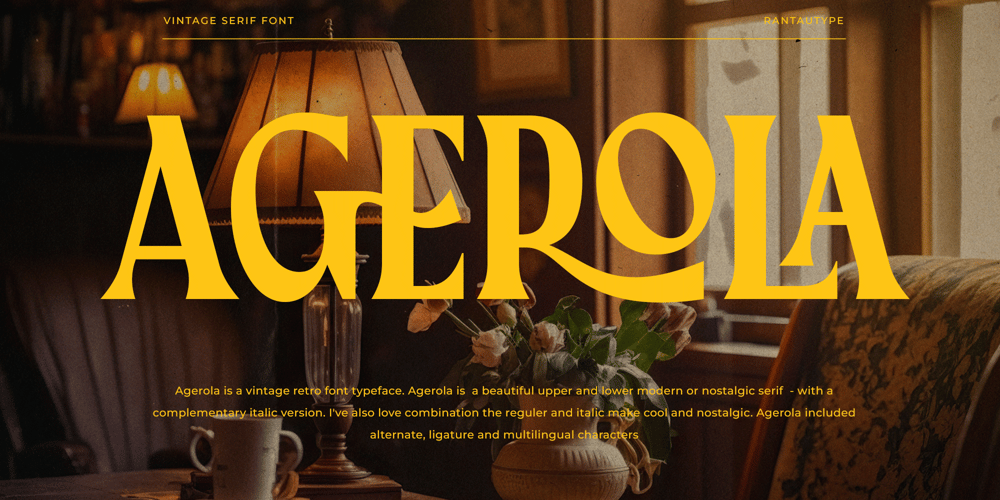
Agerola
Agerola font
Agerola Font Family was designed by Yudi Pratama Chandra and published by RantauType. Agerola contains 2 styles and family package options. Agerola – vintage retro font typeface. Agerola is a beautiful upper and lower modern or nostalgic serif – with a complementary italic version. I’ve also love combination the reguler and italic make cool and nostalgic. Agerola included alternate, ligature and multilingual charactersAgerola – perfectly suitable for creating elegant, chic, lifestyle design such as logos, title, and magazine, and more. Now you have more choice when using Agerola for typography. Agerola here to make your work to high level!!!What you have: Standar character A-Z and a-z Numberial and Functional Alternate and ligature Works on PC & Mac Simple installations Accessible in Adobe Illustrator, Adobe Photoshop, Adobe InDesign, even work on Microsoft Word. Fonts include Multilingual Support for: Afrikaans, Albanian, Asu, Basque, Bemba, Bena, Breton, Chiga, Cornish, Dutch, English, Estonian, Filipino, Finnish, Friulian, Galician, Gusii, Indonesian, Irish, Italian, Kabuverdianu, Kalenjin, Kinyarwanda, Luo, Luxembourgish, Luyia, Machame, Makhuwa-Meetto, Makonde, Malagasy, Manx, Morisyen, North, Ndebele, Nyankole, Oromo, Portuguese, Quechua, Romansh, Rombo, Rundi, Rwa, Samburu, Sango, Sangu, Scottish, Gaelic, Sena, Shambala, Shona, Soga, Somali, Spanish, Swahili, Swedish, Swiss, German.